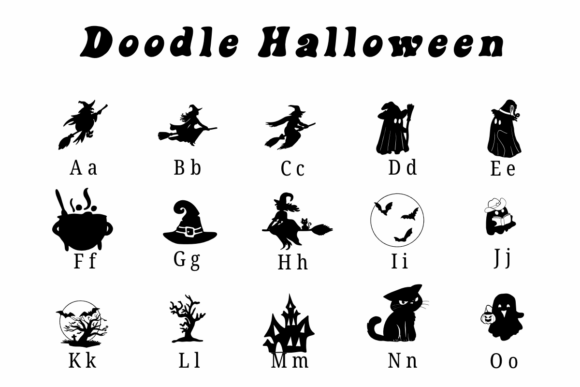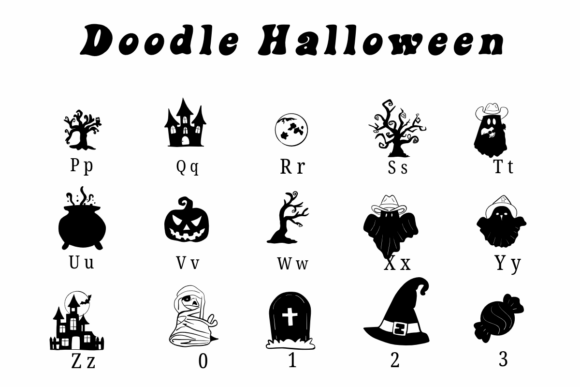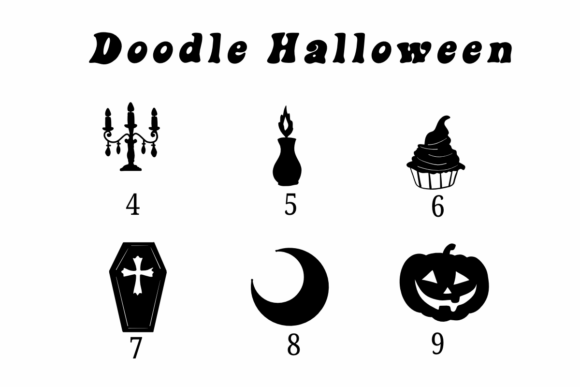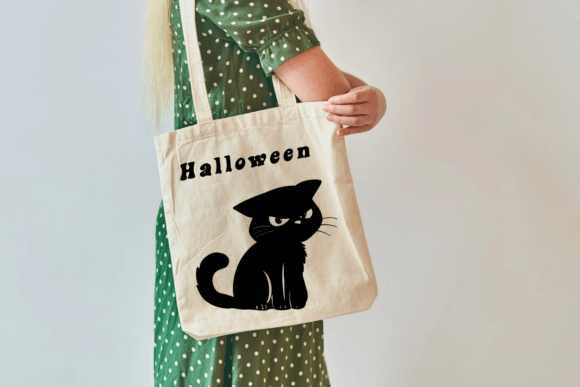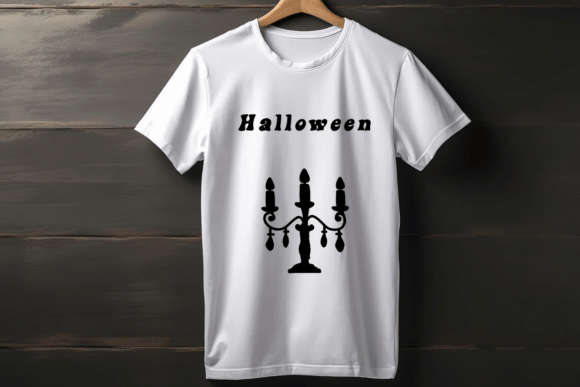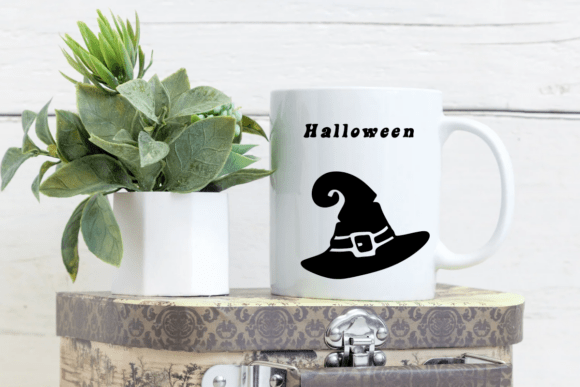
Doodle Halloween Font: Add a Spooky-Cute Touch to Your Halloween Designs
Are you looking for a fun and creative way to add a spooky-cute touch to your Halloween designs? Look no further than the Doodle Halloween Font! This adorable dingbat font is packed with hand-drawn silhouettes of witches, haunted trees, castles, cats, ghosts, and more, making it perfect for Halloween party invitations, kids’ crafts, treat bags, or festive classroom décor.
What is Doodle Halloween Font?
Doodle Halloween Font is a unique and playful font that allows you to instantly add themed illustrations to your designs without needing separate graphics. The font features a wide range of Halloween-themed silhouettes, including:
- Witches and warlocks
- Haunted trees and spooky forests
- Castles and haunted houses
- Cats and other spooky critters
- Ghosts and other supernatural creatures
- Pumpkins and other Halloween treats
With Doodle Halloween Font, the design possibilities are endless! Here are just a few ideas to get you started:
- Halloween party invitations: Add a spooky-cute touch to your party invitations with the Doodle Halloween Font.
- Kids’ crafts: Use the font to create fun and spooky crafts for kids, such as ghostly garlands or spooky stickers.
- Treat bags: Add a personal touch to your trick-or-treat bags with custom labels featuring the Doodle Halloween Font.
- Festive classroom décor: Use the font to create spooky-cute decorations for your classroom, such as ghostly banners or haunted house centerpieces.
Why Choose Doodle Halloween Font?
So why choose Doodle Halloween Font over other Halloween fonts and graphics? Here are just a few reasons:
- Unique and playful designs: The Doodle Halloween Font features unique and playful designs that are sure to add a spooky-cute touch to your Halloween designs.
- Instant access to themed illustrations: With the Doodle Halloween Font, you have instant access to a wide range of Halloween-themed illustrations, saving you time and effort.
- Perfect for designers and crafters: The font is perfect for both designers and crafters, offering a fun and creative way to add a spooky-cute touch to your designs.
Get Creative with Doodle Halloween Font
So why wait? Get creative with Doodle Halloween Font and add a spooky-cute touch to your Halloween designs. With its unique and playful designs, ease of use, and endless design possibilities, this font is sure to become a favorite among designers and crafters alike.